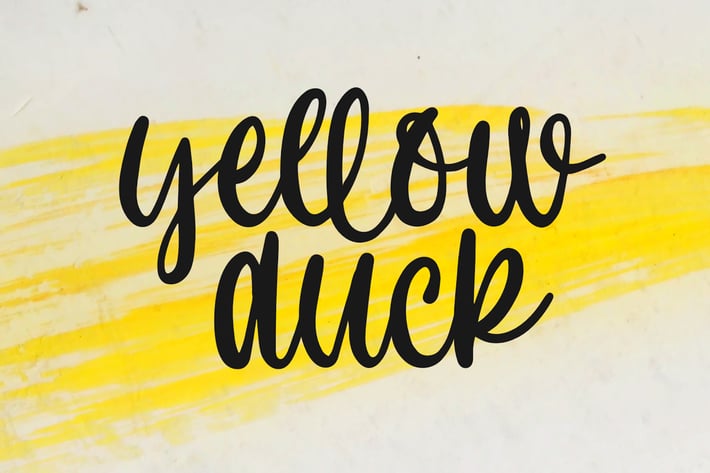
Yellow Duck - Bouncy Handwritten Script Font
Yellow Duck is a bouncy handwritten script font. perfect for all of your craft projects. This font is perfect for carft, farmhouse decor, shirt designs, websites, svg designs, home decor, branding, blogs, logos, invitations and more.\
Features:\
Uppercase & lowercase
Numbers and punctuation
Ligatures